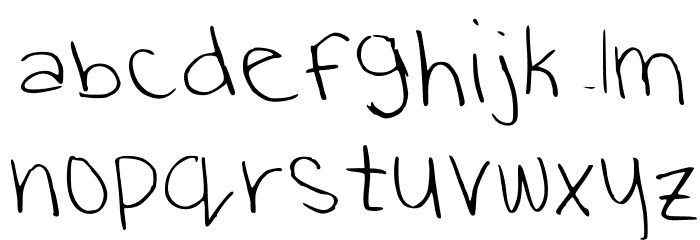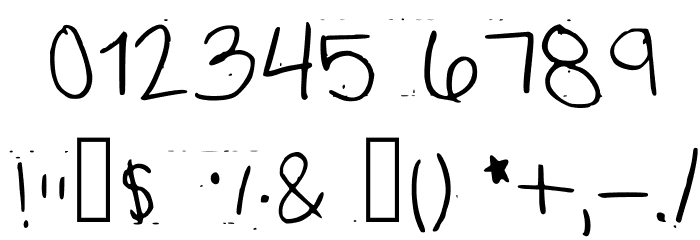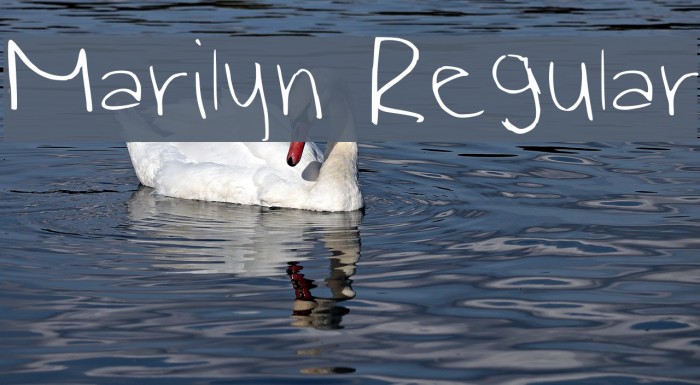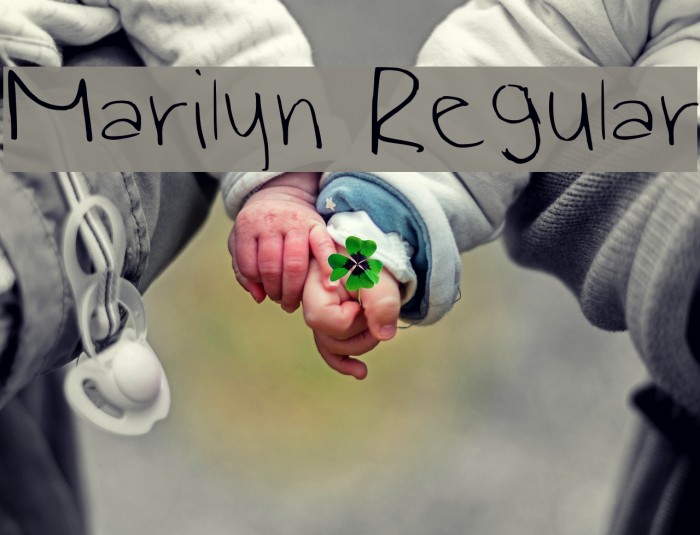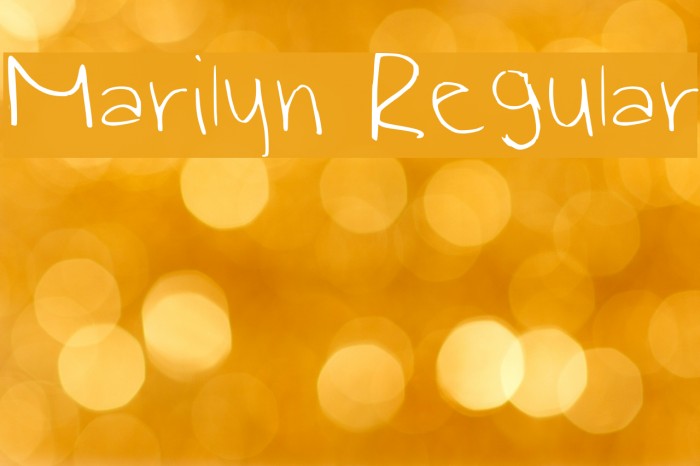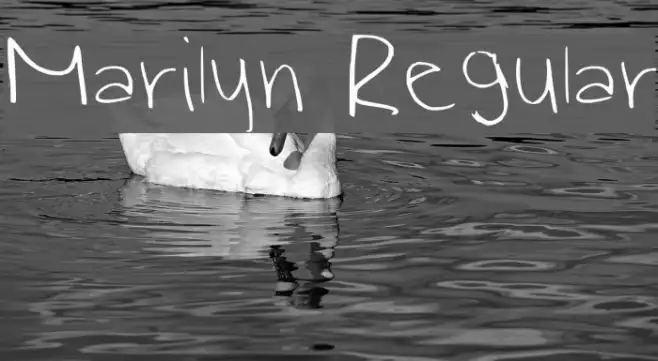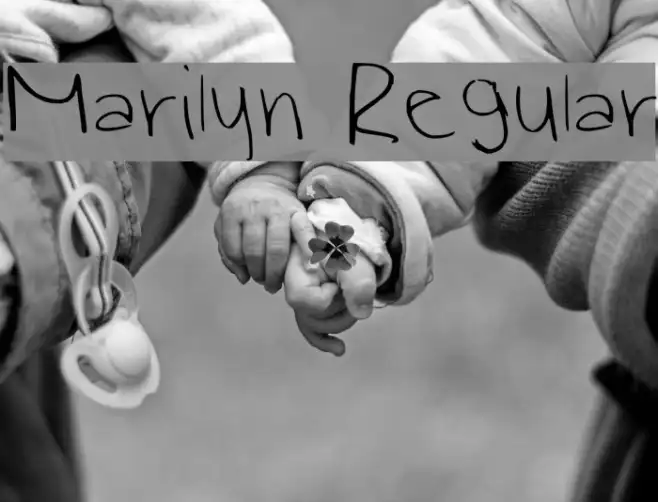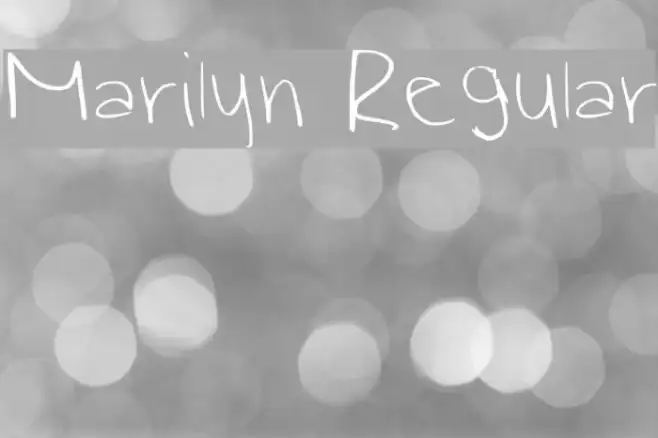
Marilyn Regular Font
This font exudes a casual and playful handwritten style, characterized by its irregular strokes and slightly uneven baseline. The letters are crafted with a natural flow, mimicking the spontaneity of handwriting. The uppercase letters maintain a consistent height, while the lowercase letters vary slightly, adding to the informal charm. The numerals are clear and distinct, matching the overall aesthetic. Special characters are included, maintaining the same whimsical style. This font is perfect for projects that require a personal touch or a relaxed, friendly vibe.
A playful handwritten font with a casual, informal style.
- Proposed Projects: Ideal for greeting cards, personal notes, children's books, and casual branding.
- Overall Style: Casual
- Use Case: Headlines, Informal text, Personal projects